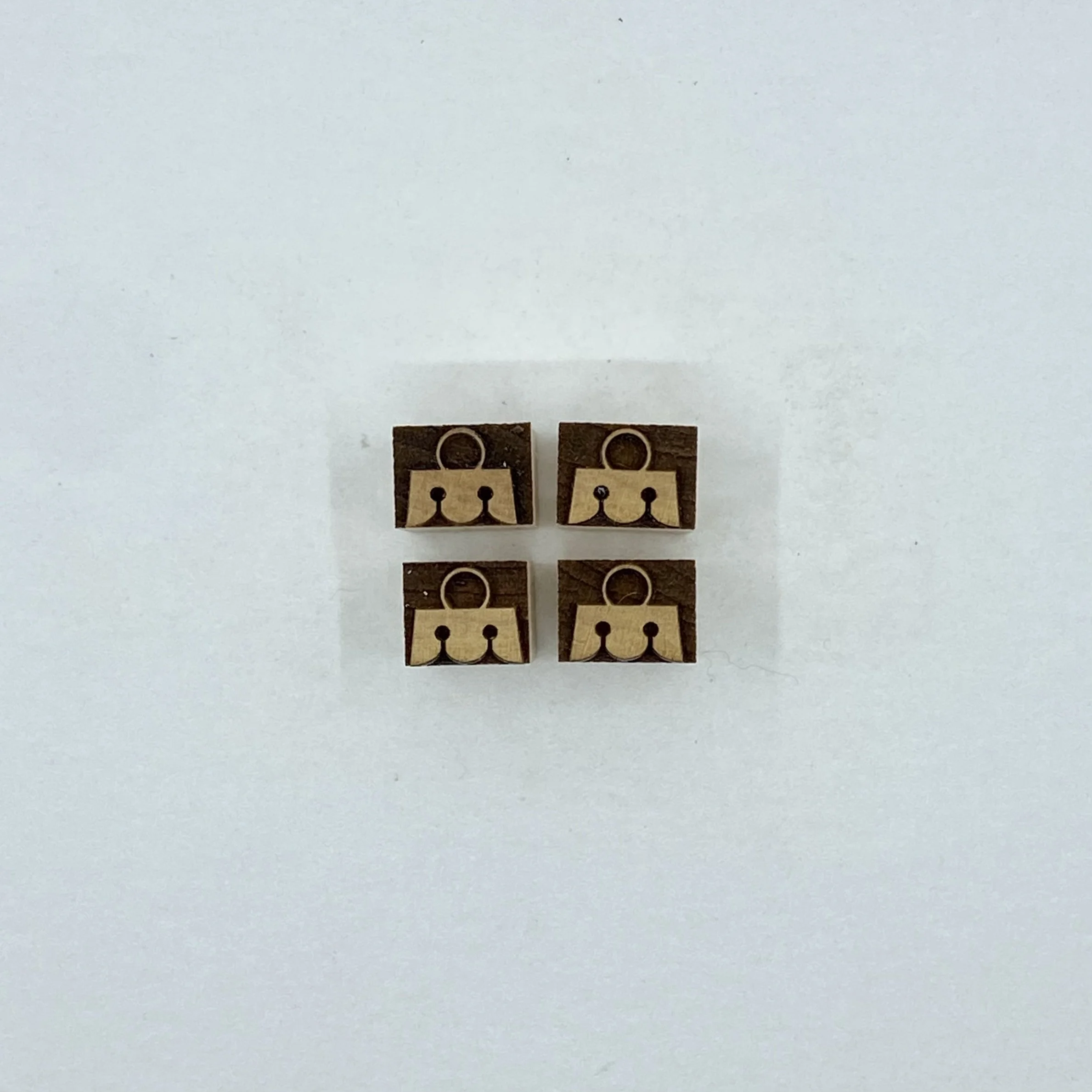
Designed by Scott Moore, cut by Brea Frey
A set of four ornament toppers designed to transform any type into a festive Christmas ornament. Each topper is 3-line in size.